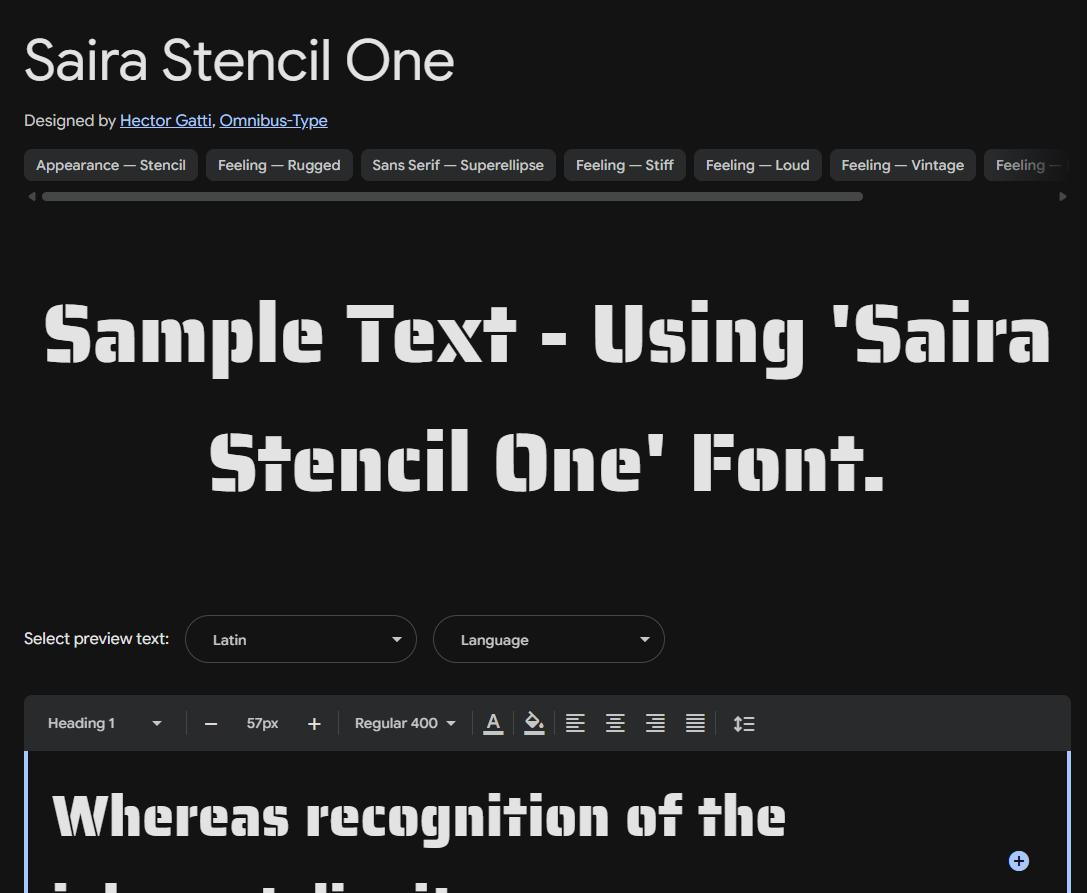
Saira Stencil One, meticulously engineered by Hector Gatti of the Omnibus-Type foundry, serves as a specialized singular-style extension that translates the mechanical logic of industrial stencil-cutting into a high-impact digital display typeface. By implementing strategic interruptions within the glyph architecture-mirroring the physical "bridges" required to maintain structural integrity in physical templates-Gatti evolves the neo-grotesque DNA of the broader Saira system into a robust, heavy-weight aesthetic characterized by its wide apertures and geometric rigor. This typeface effectively synthesizes the utilitarian semiotics of cargo logistics with contemporary branding requirements, utilizing precise negative space management and low-contrast stroke terminals to ensure maximum legibility across large-scale environmental graphics and digital interfaces alike.
Engineered with a superellipse-based architecture, Saira Stencil One transcends traditional display typography by merging the industrial utility of a rugged stencil aesthetic with a high-impact sans serif structure. This typeface oscillates between a vintage, stiff mechanical rigidity and a loud, innovative futurism, utilizing its segmented strokes to command visual hierarchy across diverse media. The intersection of its heavy weight and rhythmic apertures creates a feeling that is simultaneously anchored in the heritage of physical marking systems and the forward-leaning demands of modern digital interfaces, resulting in a provocative stylistic paradox that is both timelessly archival and aggressively contemporary.
Saira Stencil One, a singular heavy-weight display face from the Omnibus-Type foundry, is fundamentally unsuitable for high-density editorial projects or luxury boutique branding due to its aggressive industrial DNA and disrupted stroke continuity. While the broader Saira superfamily is praised for its neo-grotesque versatility, Hector Gatti's stencil iteration intentionally compromises internal counter integrity and long-form readability to achieve a utilitarian, militaristic aesthetic. Consequently, it fails in contexts requiring high legibility at small optical sizes, such as pharmaceutical labeling or legal contracts, where the characteristic stencil breaks create excessive visual noise and impede rapid character recognition. Its lack of weight variance-being restricted to a single-style manifestation-precludes its use in complex UI/UX environments where hierarchical typographic scales are essential for navigating intricate data or in high-fashion identity systems that demand refined, continuous stroke elegance.
This typeface excels in industrial, tech-focused, and brutalist design aesthetics that prioritize raw, structural elements and high-impact visual messaging. Its geometric construction and stencil gaps harmonize with grid-based layouts, achieving a high visual weight consistency typical of heavy neo-grotesque display faces.
Saira Stencil One is not recommended for extensive body copy as its broken strokes and segmented letterforms can impede reading speed and cause visual fatigue. The high stroke contrast and specific aperture placements reduce the font's x-height legibility, making it mathematically inefficient for sustained narrative comprehension in small-print formats.
The typeface is highly effective for large-scale applications like warehouse signage and wall graphics due to its bold presence and architectural feel. Its heavy glyph weight ensures high contrast against physical substrates, maintaining structural integrity even when rendered at massive scale-factors via CNC milling or vinyl cutting.
It pairs seamlessly with clean, neutral sans-serifs like Roboto or Open Sans to provide a functional balance against its aggressive personality. Utilizing a monospaced companion like Saira Mono creates a cohesive typographic hierarchy by leveraging shared vertical metrics and identical geometric terminals.
This font is an excellent choice for logos requiring a sense of durability, engineering precision, or urban utility in their brand identity. The distinct stencil apertures act as built-in negative space elements, facilitating better scalability and brand recognition when converted into single-color vector formats.
Its aesthetic is perfectly aligned with industrial and military themes, evoking the utilitarian markings historically found on shipping crates and heavy machinery. The typeface mimics the physical "bridges" required for traditional spray-paint stencils, grounding digital designs in authentic manufacturing history and rugged hardware aesthetics.
Legibility diminishes significantly at small sizes because the narrow gaps in the stencil letters tend to "fill in" on low-resolution display panels. Sub-pixel rendering issues often occur when the font is set below 18px, leading to a loss of the defining aperture details that differentiate its specific character glyphs.
It is a premier choice for high-impact posters, offering a commanding visual authority that demands immediate viewer attention from a distance. The extreme black weight and condensed proportions maximize ink density on the page, creating a dominant focal point through sheer typographic mass and high-frequency edge contrast.
Its bold, rigid structure makes it ideal for dynamic motion graphics and lower-third overlays in action-oriented or documentary-style video content. The sharp vertex points and uniform stroke thickness allow for clean alpha-channel masking and high-frequency edge retention during rapid screen transitions or kinetic typography sequences.
Tightening the letter spacing can create a powerful, compact block of text that feels solid and indestructible within a graphic composition. While negative tracking enhances its "wall of text" effect, designers must manually adjust kerning pairs to prevent optical merging of the heavy vertical stems and preserve the stencil's unique break-points.